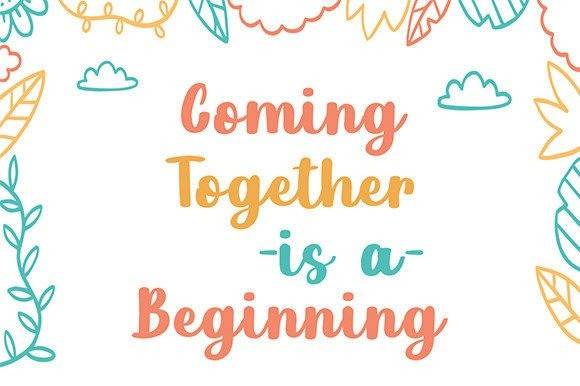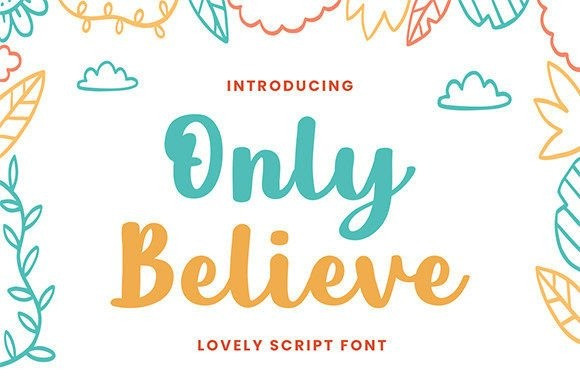
Only Believe Font
Only Believe Font is a delicate, flowing and unique script font. is PUA encoded which means you can access all of the glyphs and swashes with ease! Fall in love with it and bring your projects to the highest levels! This font is suitable for branding, birthday card, social media, quotes, lettering, watermarks, invitations.